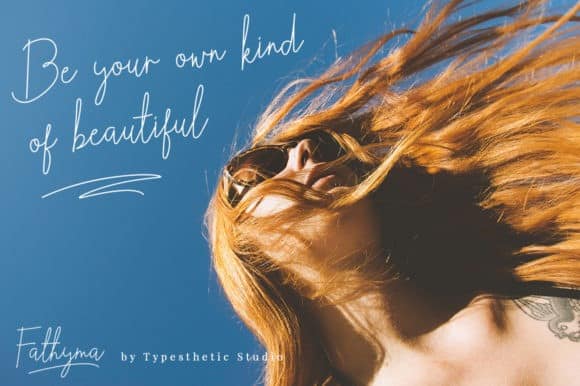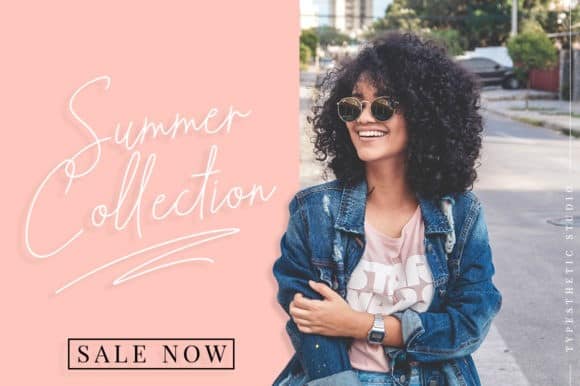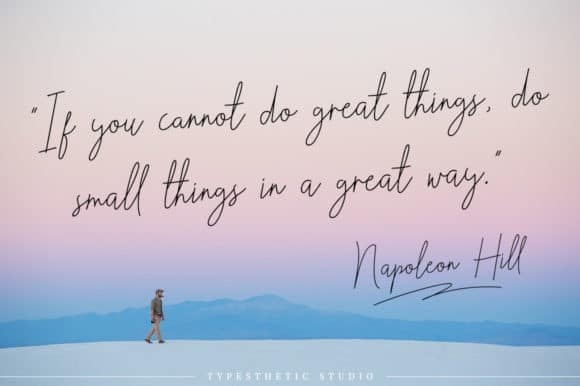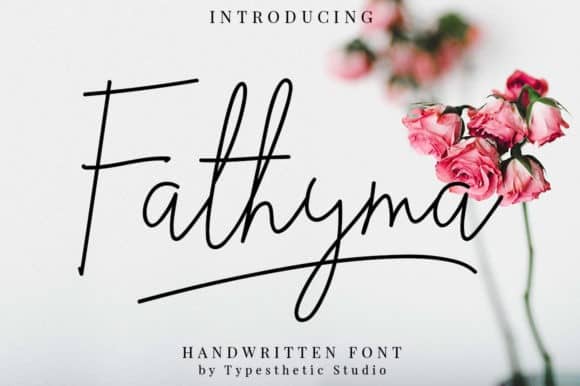
Fathyma Handwritten Font
Fathyma Handwritten Font is a modern look of signature font, can make your text appear elegant, luxurious, and modern!. This font is designed and shared by Typesthetic Studio. It’s a stylish and incredibly elegant script typeface. It looks stunning on wedding invitations, thank you cards, quotes, greeting cards, logos, business cards and every other design which needs a handwritten touch. This font is PUA encoded which means you can access all of the glyphs and swashes with ease! It features a varying baseline, smooth lines, gorgeous glyphs and stunning alternates.